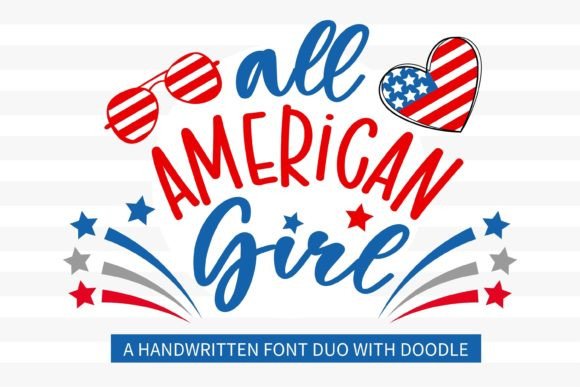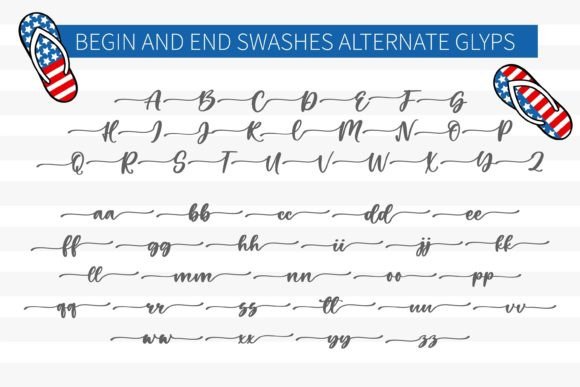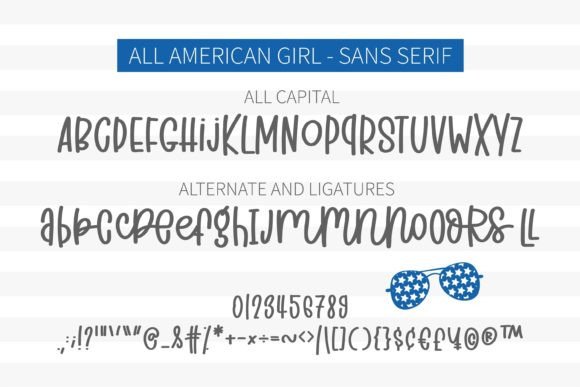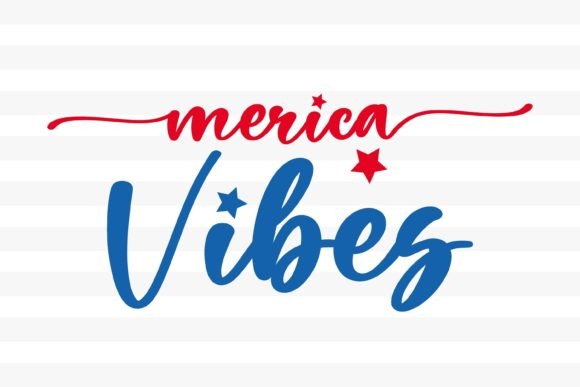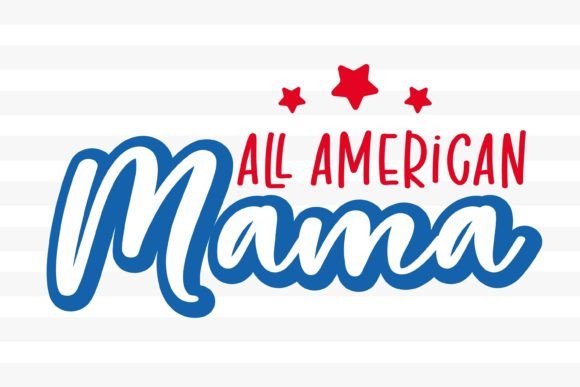
All American Girl Font
All American Girl is a duo-styled handwritten font with a bonus clipart that feels equally charming and delicate. This font is PUA encoded, which means you can easily access all of the glyphs and swashes! All American Girl will turn any creative idea into a standout!